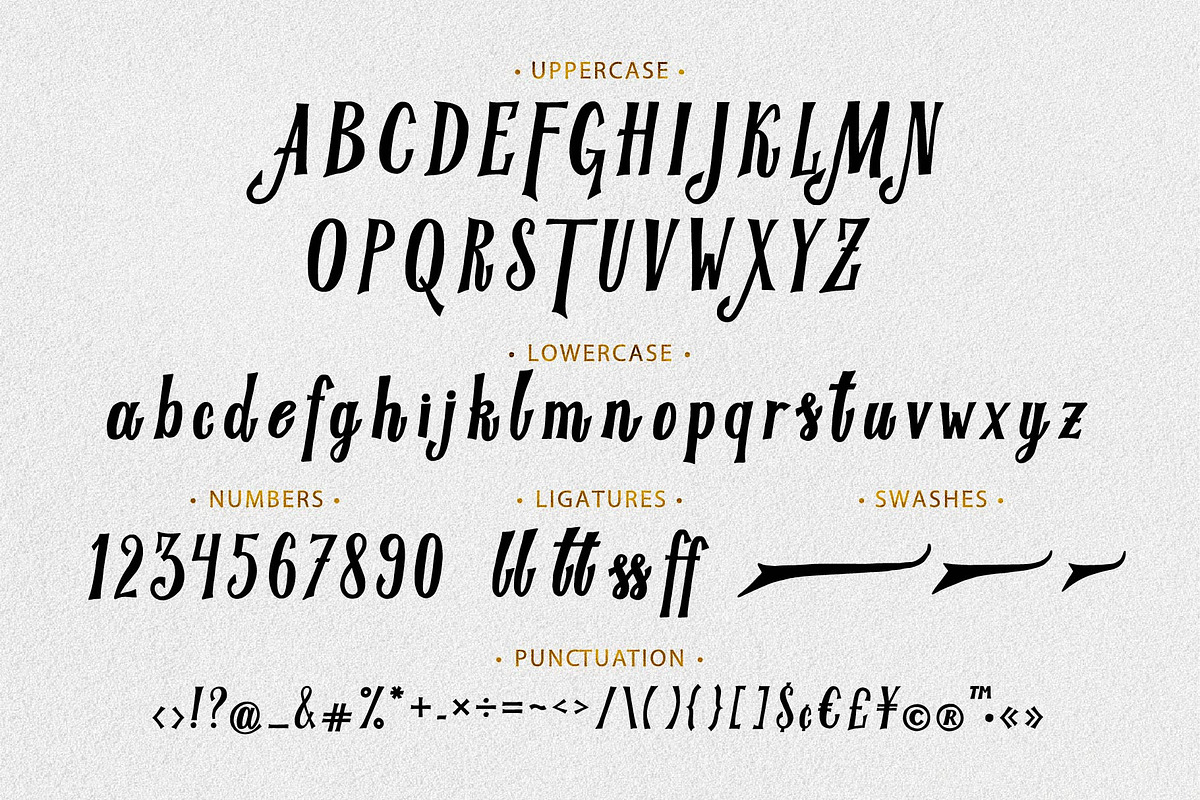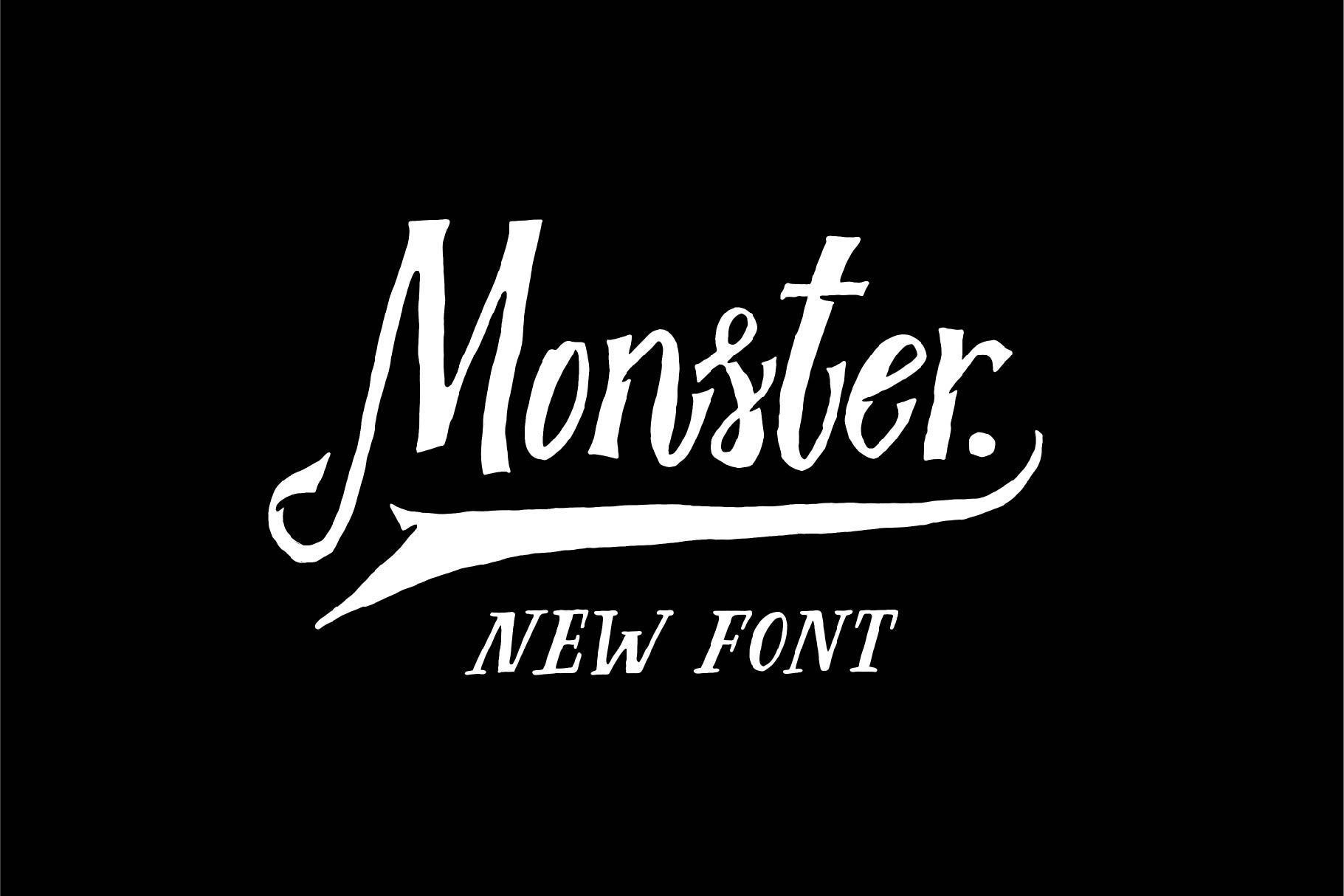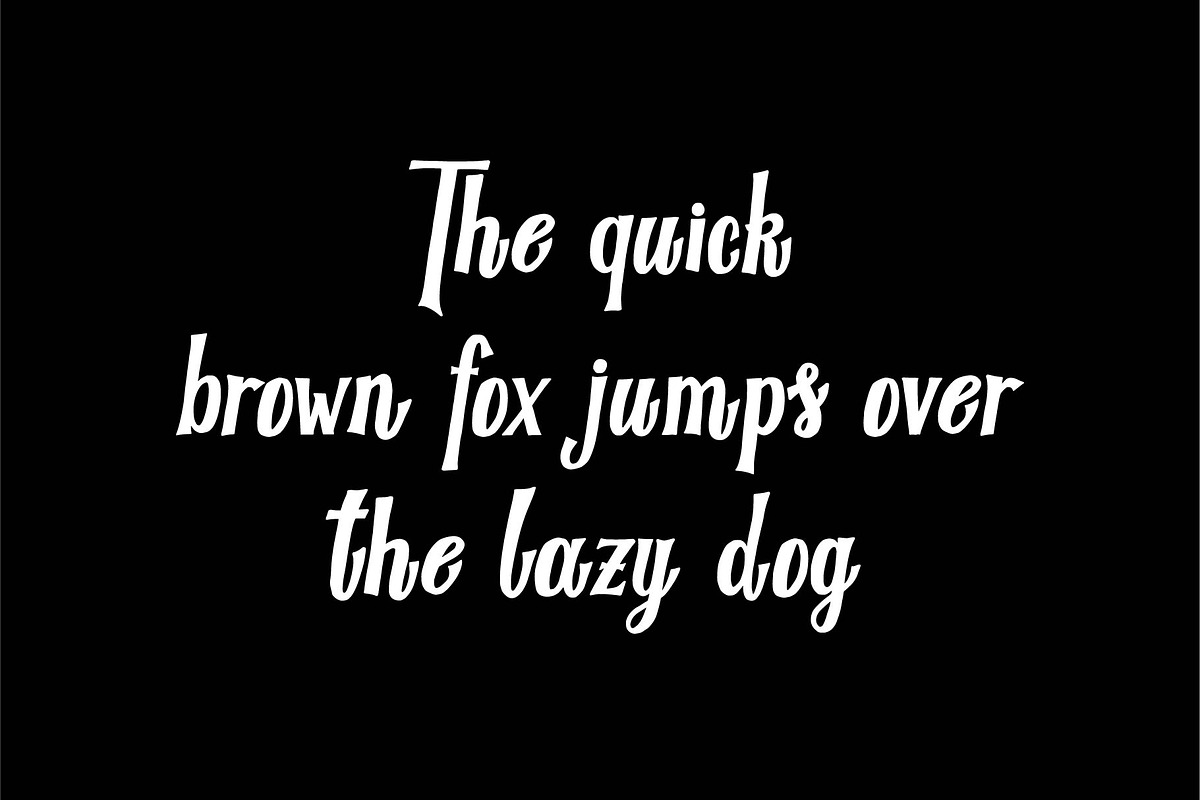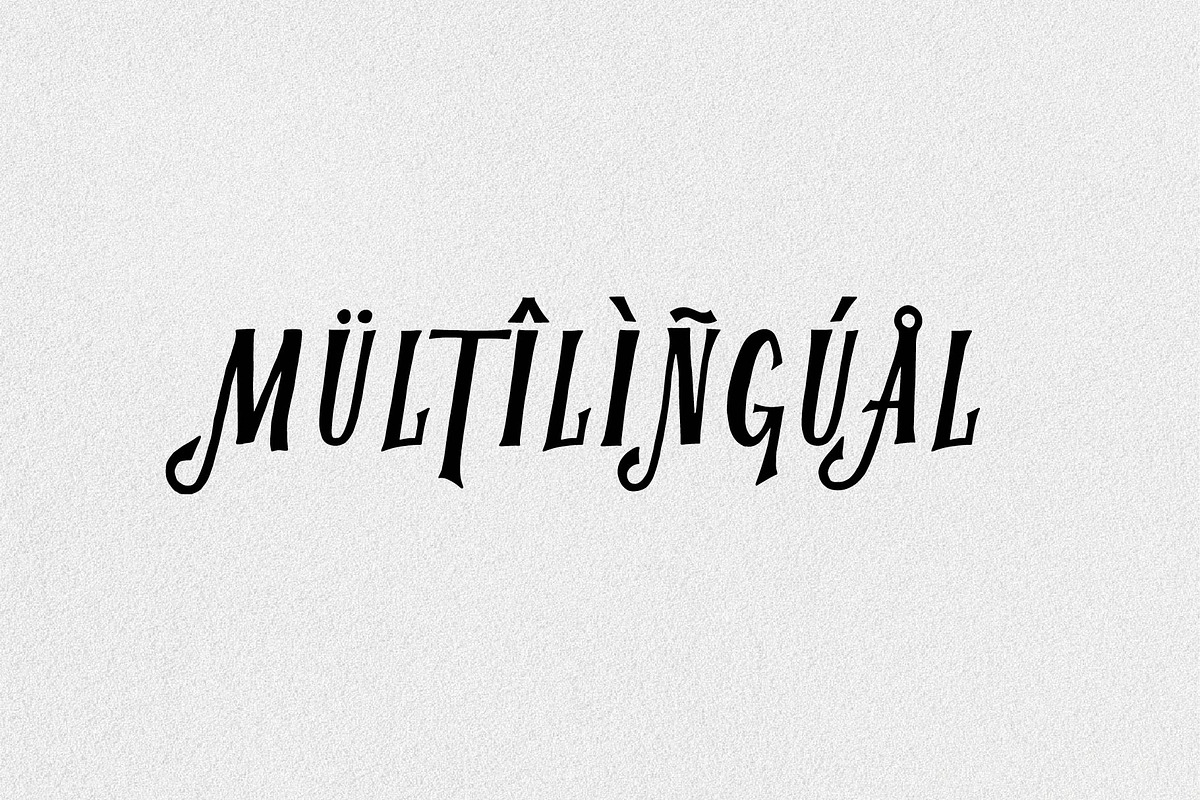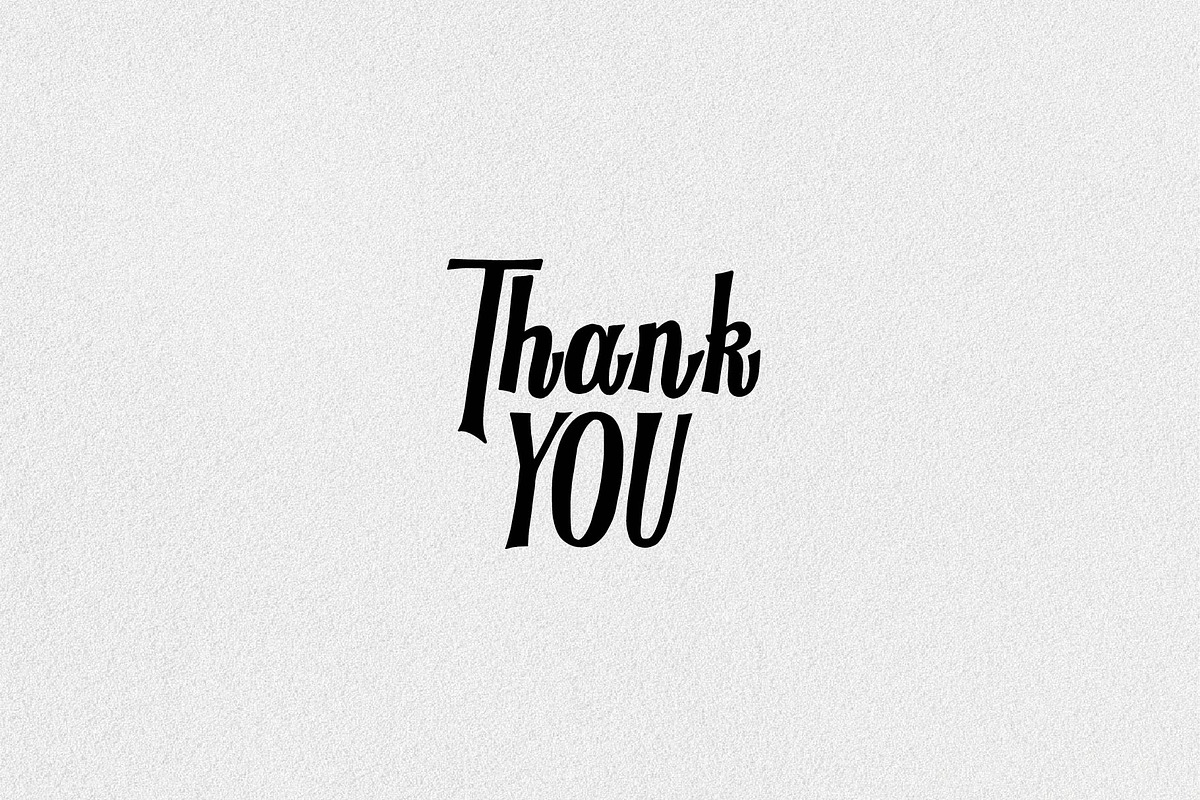
Monster - Vintage font
Introducing Monster
Monster is a decorative vintage font in modern performance. It is perfect for:
- Logos
- Posters
- Labels
- Headlines
- Apparel
- Tattoo
- & more
Monster comes with upper and lowercase calligraphy characters, numbers, marks and punctuation.